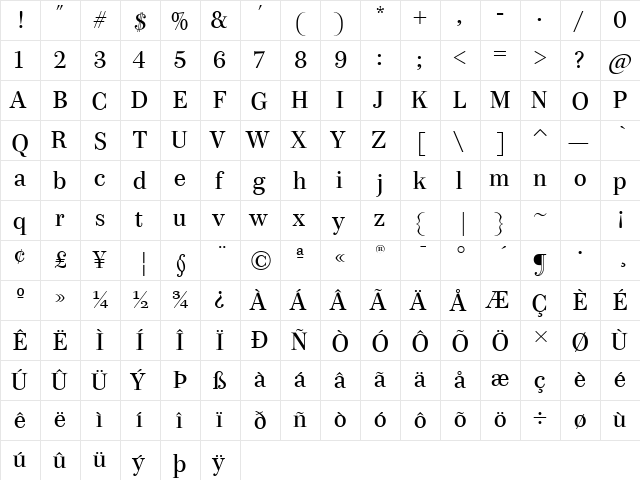
Paperback 96 TT Regular
| Foundry | House Industries |
| Designer | John Downer |
Design Context for Paperback 96 TT Typeface
Paperback 96 TT takes a measured approach to typography — its balanced proportions and neutral character make it a reliable workhorse for both digital and print work.